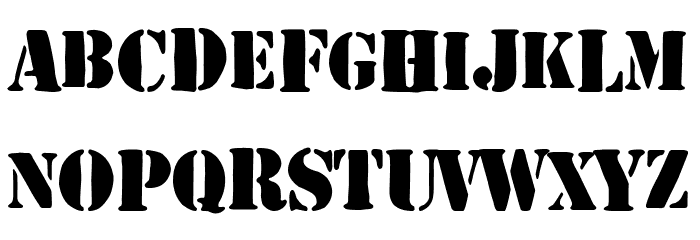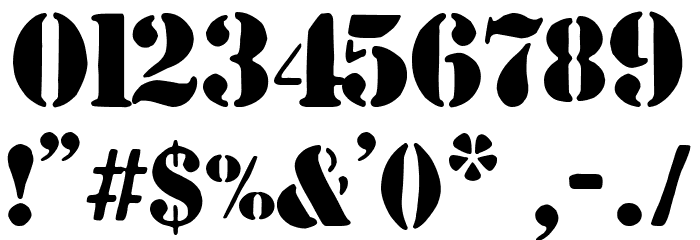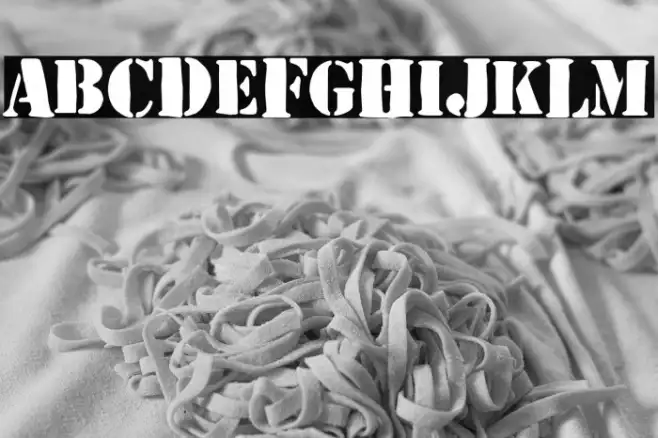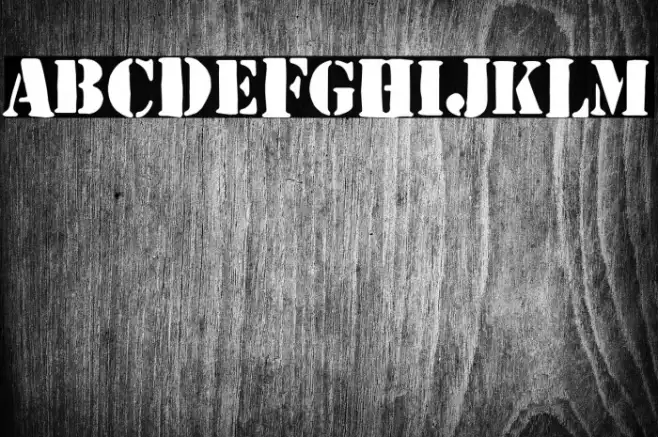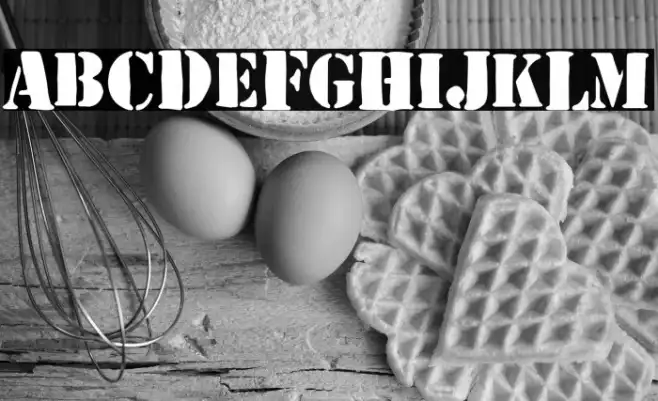
Marbella Army Font
This font features a bold, stencil-like design with distinct cutouts in each character, reminiscent of military or industrial lettering. The uppercase and lowercase letters maintain a consistent style, with strong, angular lines and a robust presence. The numbers and special characters follow the same aesthetic, making them highly legible and impactful. The font's design is both functional and decorative, suitable for projects that require a strong visual statement. Its unique style makes it ideal for use in branding, posters, and signage where a bold and authoritative look is desired.
A bold, stencil-style font with strong, angular lines and distinct cutouts.
- Font: Marbella Army
- Proposed Projects: Ideal for military-themed designs, industrial branding, posters, and impactful signage.
- Use Case: Headlines, Logos, Signage